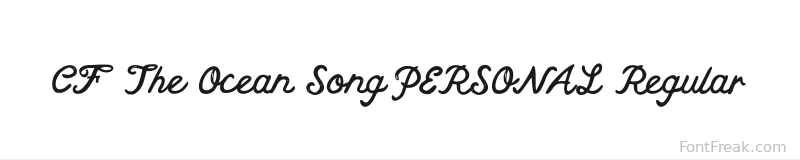
CF The Ocean Song PERSONAL Regular
About CF The Ocean Song PERSONAL Regular
CF The Ocean Song PERSONAL Regular is a beautifully crafted script font by Cloutierfontes, offering a touch of elegance and whimsy to any project. This font is categorized as a script typeface, characterized by its fluid, cursive strokes that mimic the natural flow of handwriting. The strokes exhibit a moderate weight with gentle contrasts, creating a harmonious balance that enhances readability while maintaining a stylish flair. The generous spacing between the letters adds to its legibility, making it an excellent choice for both digital and print applications.
Ideal use cases for CF The Ocean Song PERSONAL Regular include wedding invitations, where its romantic style can set the perfect tone for a special day. It also shines in greeting cards and personalized stationery, adding a heartfelt touch to any message. Graphic designers may find it suitable for branding projects, particularly for businesses in the creative or lifestyle sectors, where a unique and inviting font can help establish a memorable identity. Additionally, this font can elevate restaurant menus, infusing them with character and charm that reflects a casual yet sophisticated dining experience.
Target audiences for this font include graphic designers seeking to enhance their projects with a distinctive typeface, small business owners looking to create impactful branding, and content creators who want to add a personal touch to their digital content.
What sets CF The Ocean Song PERSONAL Regular apart is its ability to evoke a sense of warmth and creativity, making it a versatile choice for various applications. Its unique style stands out in a crowded marketplace, making it an excellent option for anyone looking to make a lasting impression. For those interested, the CF The Ocean Song PERSONAL Regular font free download is readily available, inviting users to explore its potential in their creative endeavors.